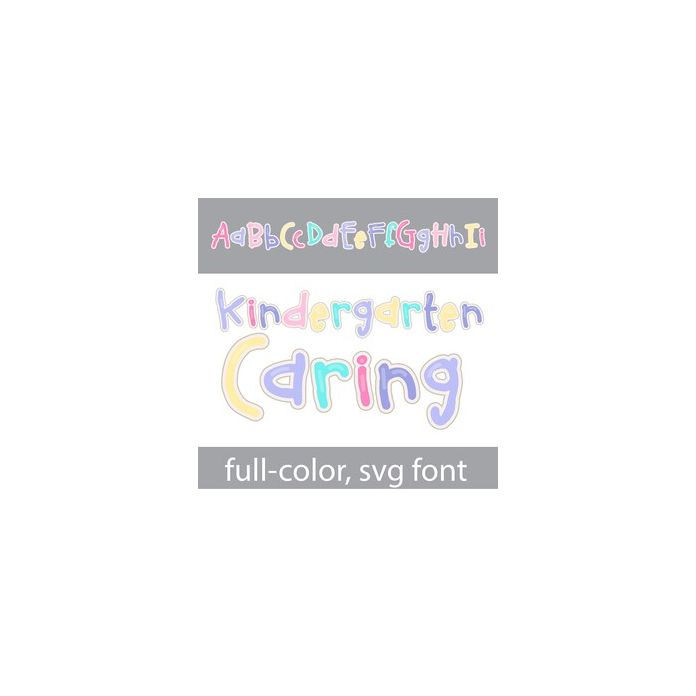
This full-color font looks like youthful, hand-written letters in a pastel color palette. There is an alt case w/ additional colors you can access through your system or Silhouette's glyph map.